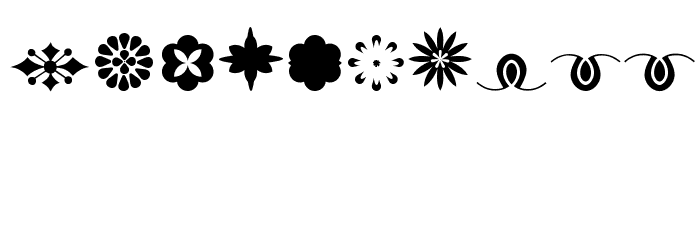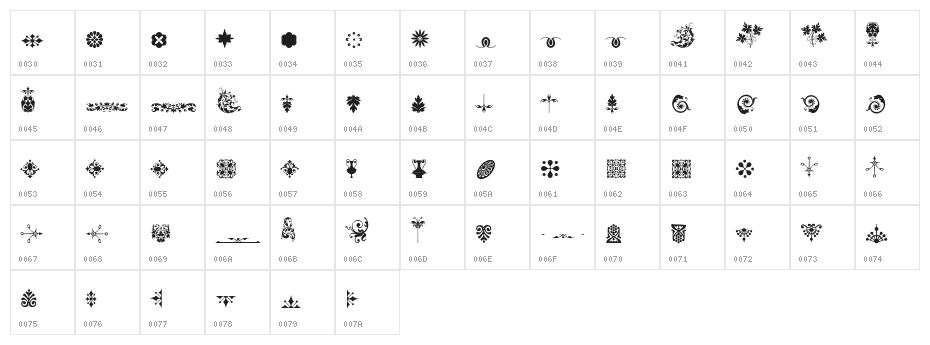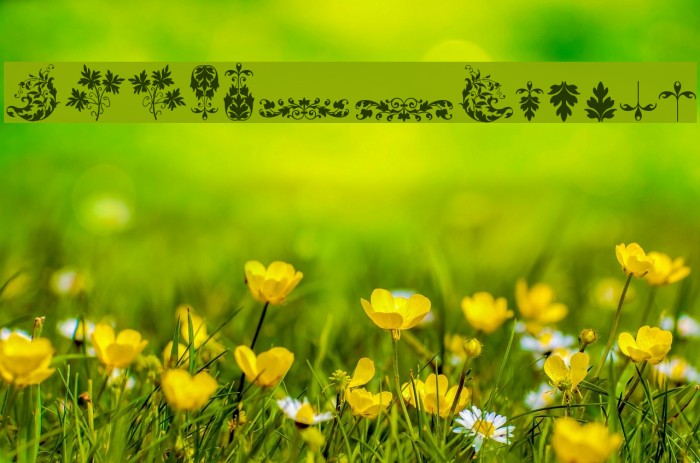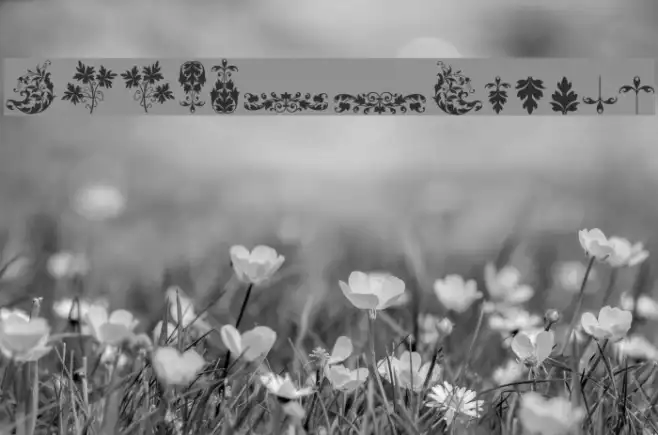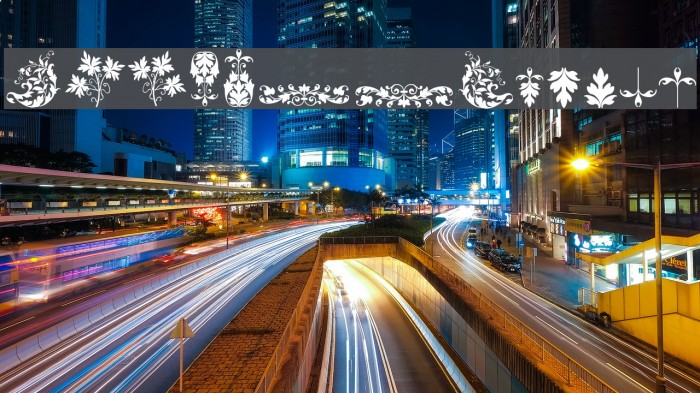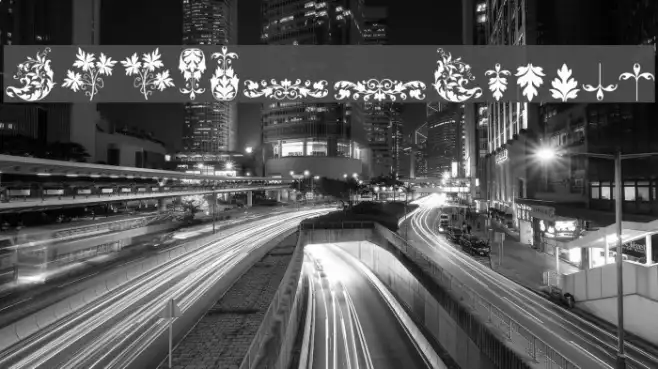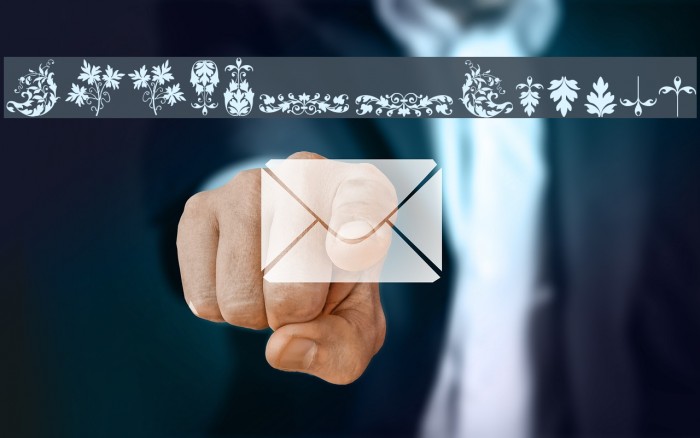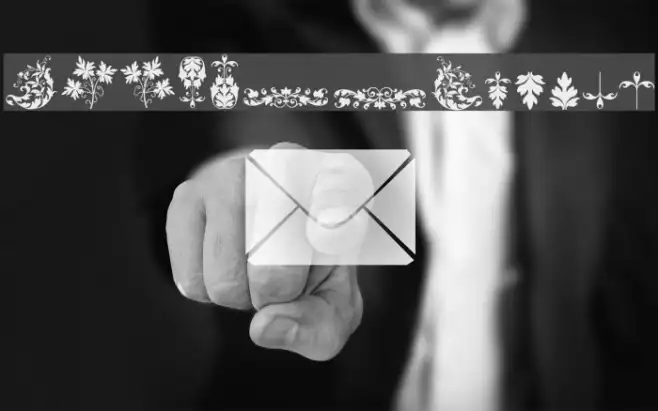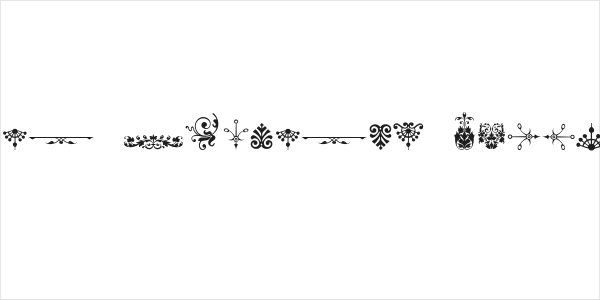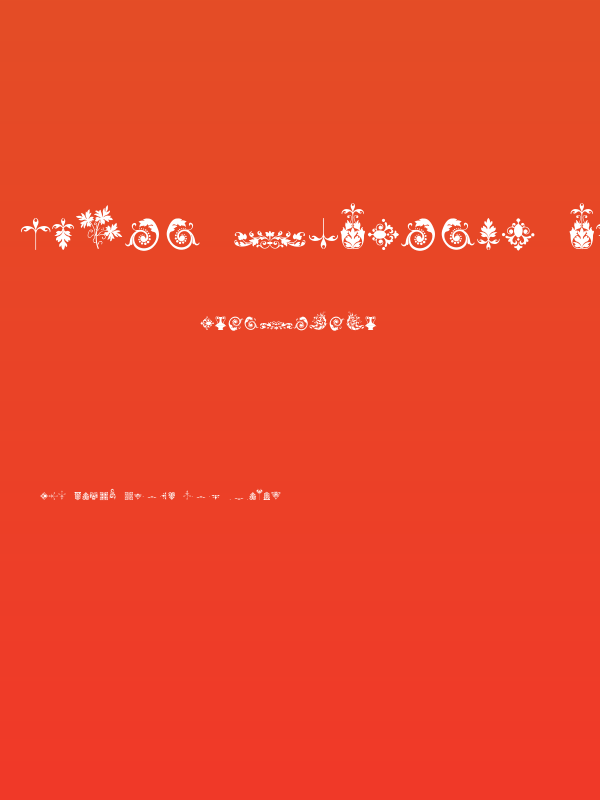
Micro Fleurons Eighteen Font
Micro Fleurons Eighteen Description
A decorative collection of intricate floral and ornamental glyphs, featuring symmetrical motifs, flourishes, and stylized botanical elements with high detail and contrast. The designs evoke a vintage or classical aesthetic, suitable for embellishments and borders.
| Overall Style | Vintage, Decorative |
| Use Case | Borders, embellishments, dividers, decorative accents |
| Proposed Projects | Wedding invitations, certificates, book covers, decorative borders, vintage-themed designs. |